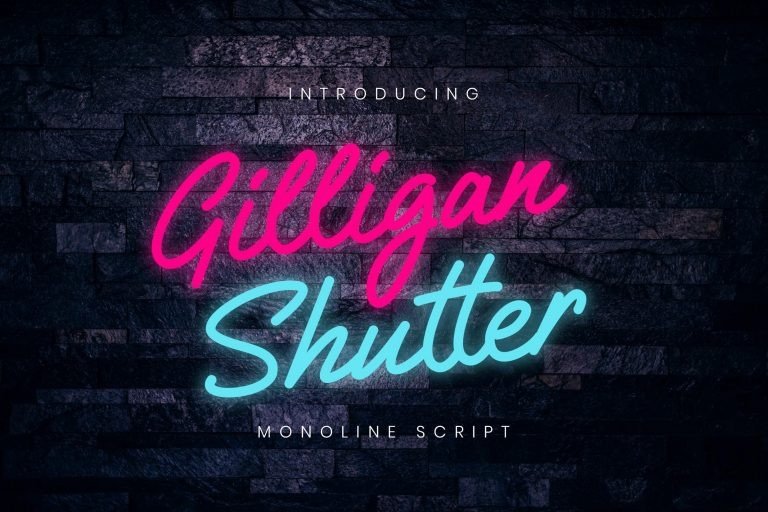
Gilligan Shutter Script Font
Glad to introduce you a new Gilligan Shutter Script Font. Give your designs an authentic handwritten handcrafted feel. Made from font designer Creatype Studio. This font is a sophisticated signature monoline bold collection that give natural lettering for your latest project.
It’s hand brushed font with multilingual support. Is ideal for t-shirts, magazines, phone covers, social media, restaurant menus, greeting cards, invitations, weddings, headers and many more. This monoline font comes with a complete set of lowercase and uppercase characters, numerals and multilingual support.